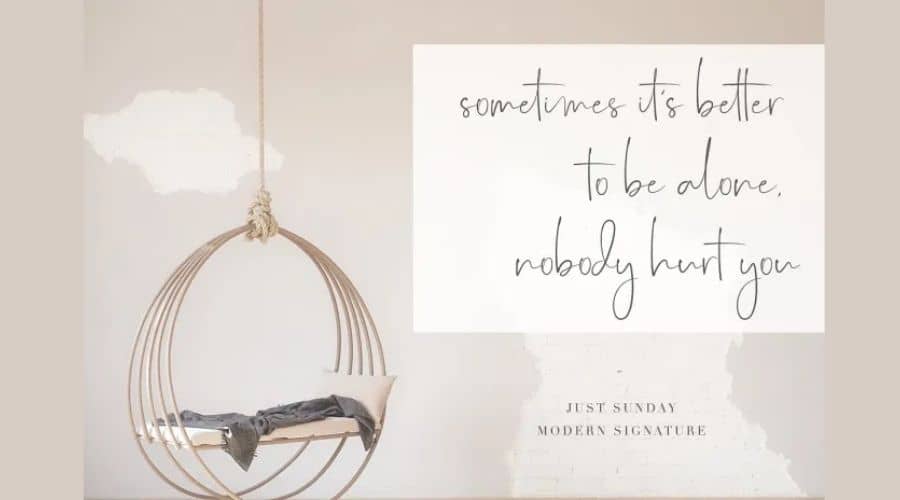
Just Sunday Font
Just Sunday is a high-quality handwritten and Script typeface created by dharmas and released on November 11, 2018. The typeface can be downloaded for personal use for free. All uppercase and lowercase letters and a few special characters are included in the free version.
This Font is perfect for logos, watermarks, branding, wedding invites, quotes, and other projects. Let’s put this to good use and make a great project.